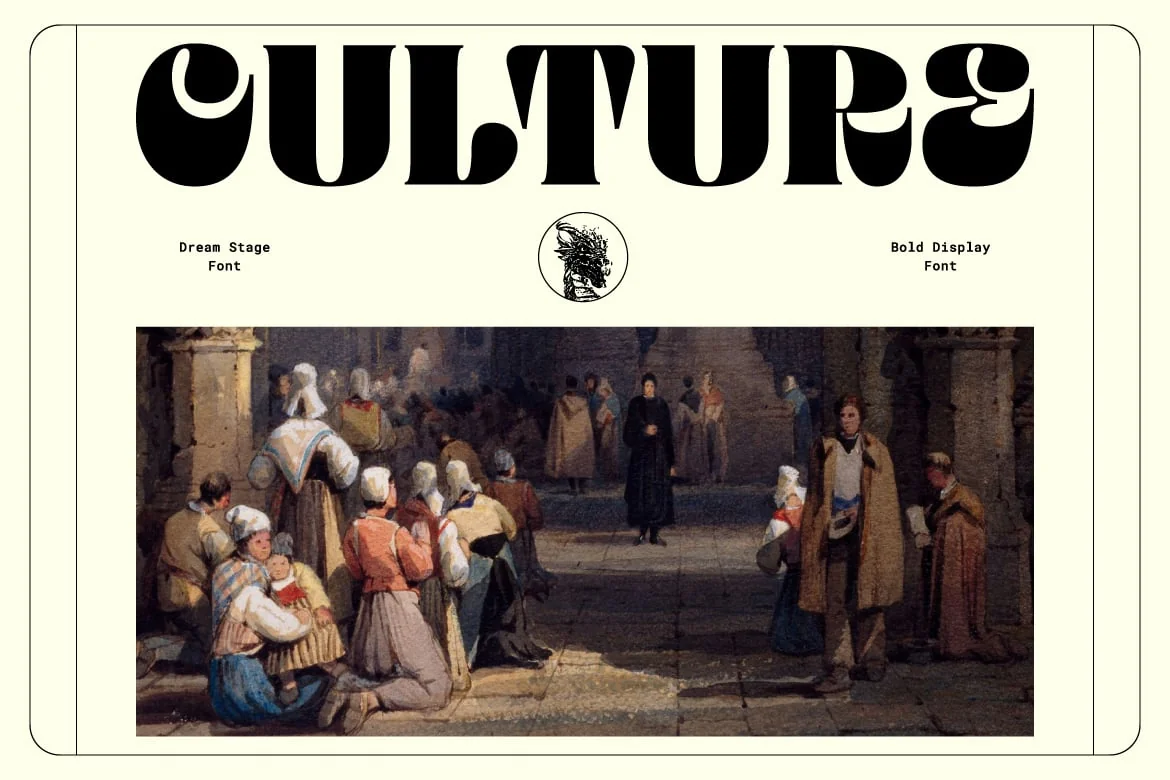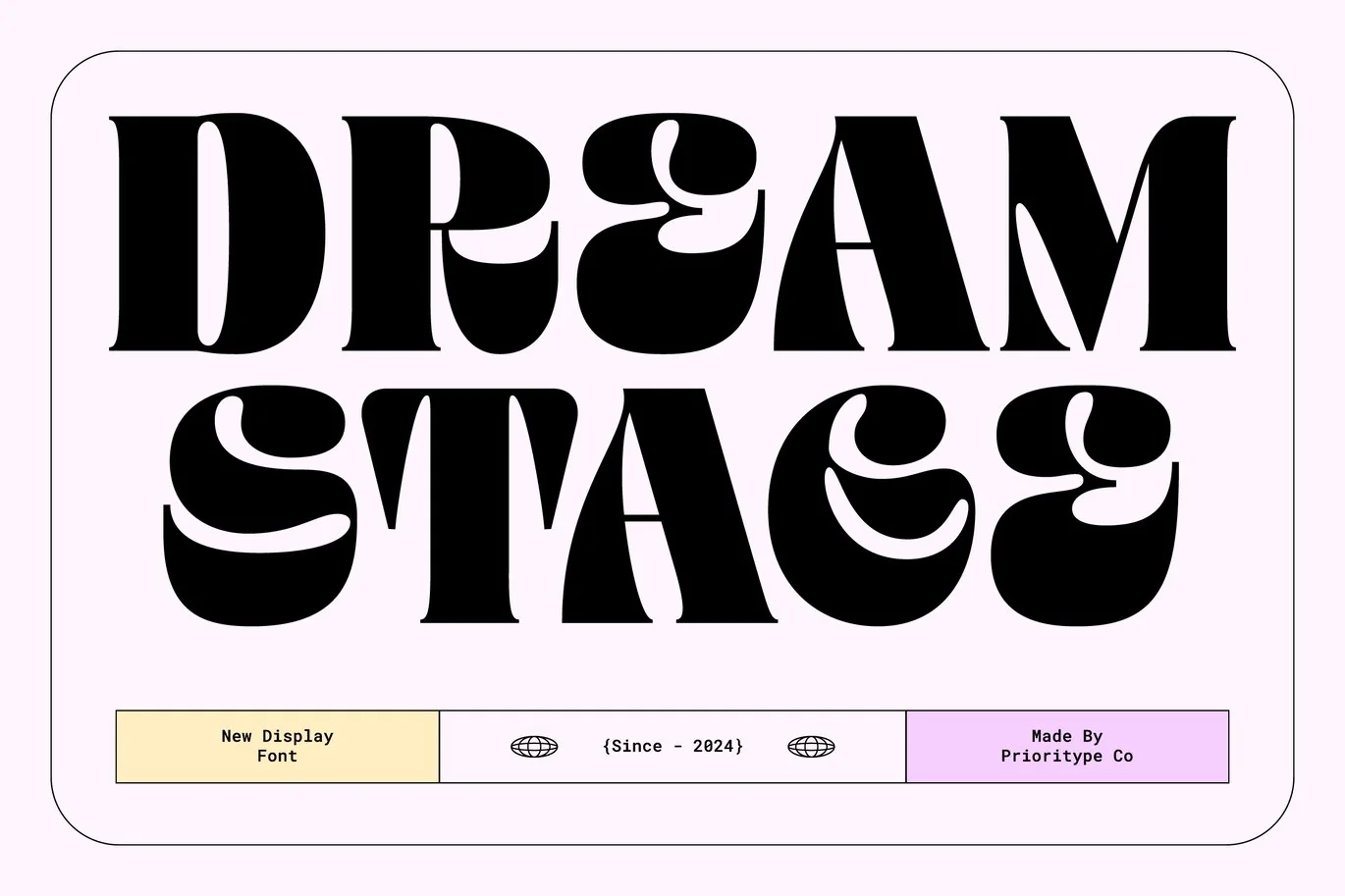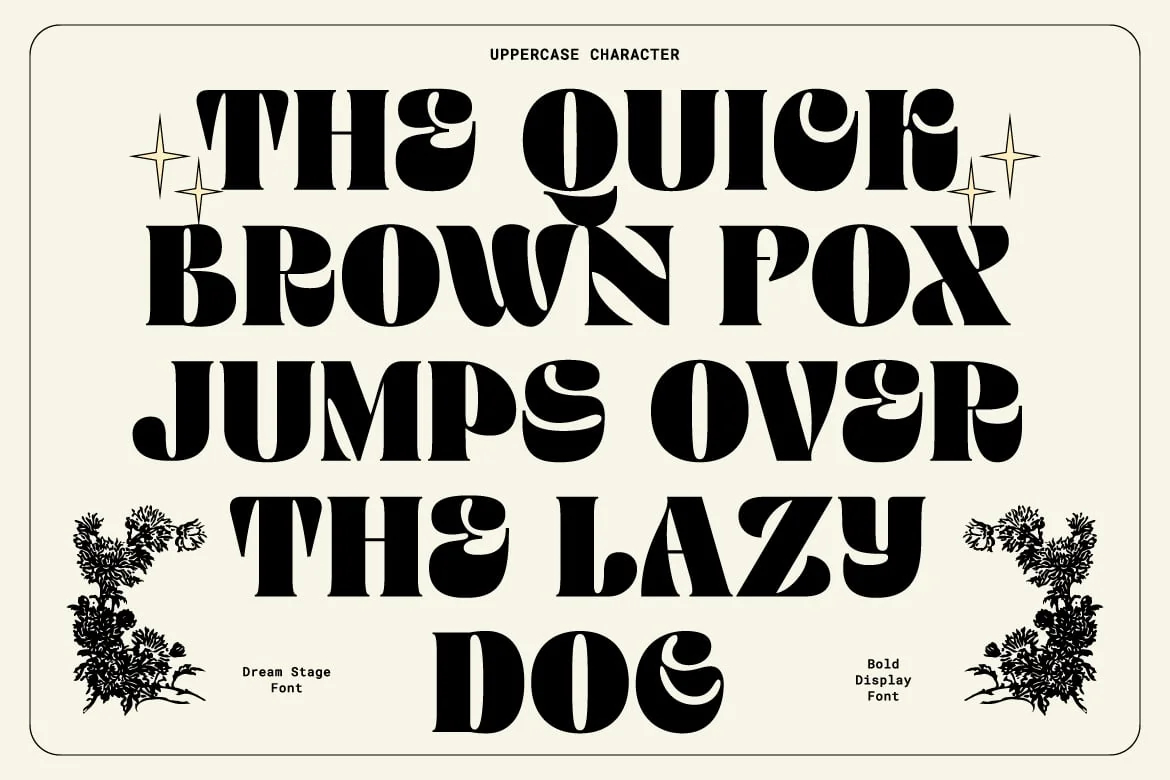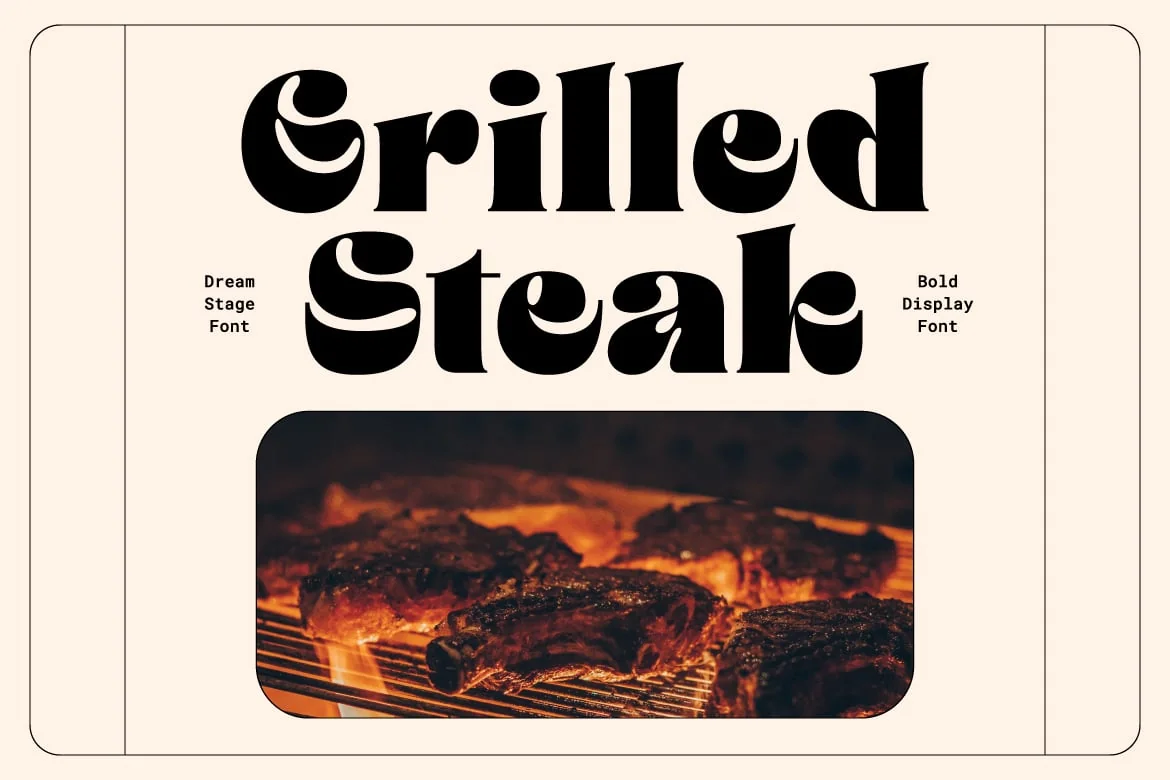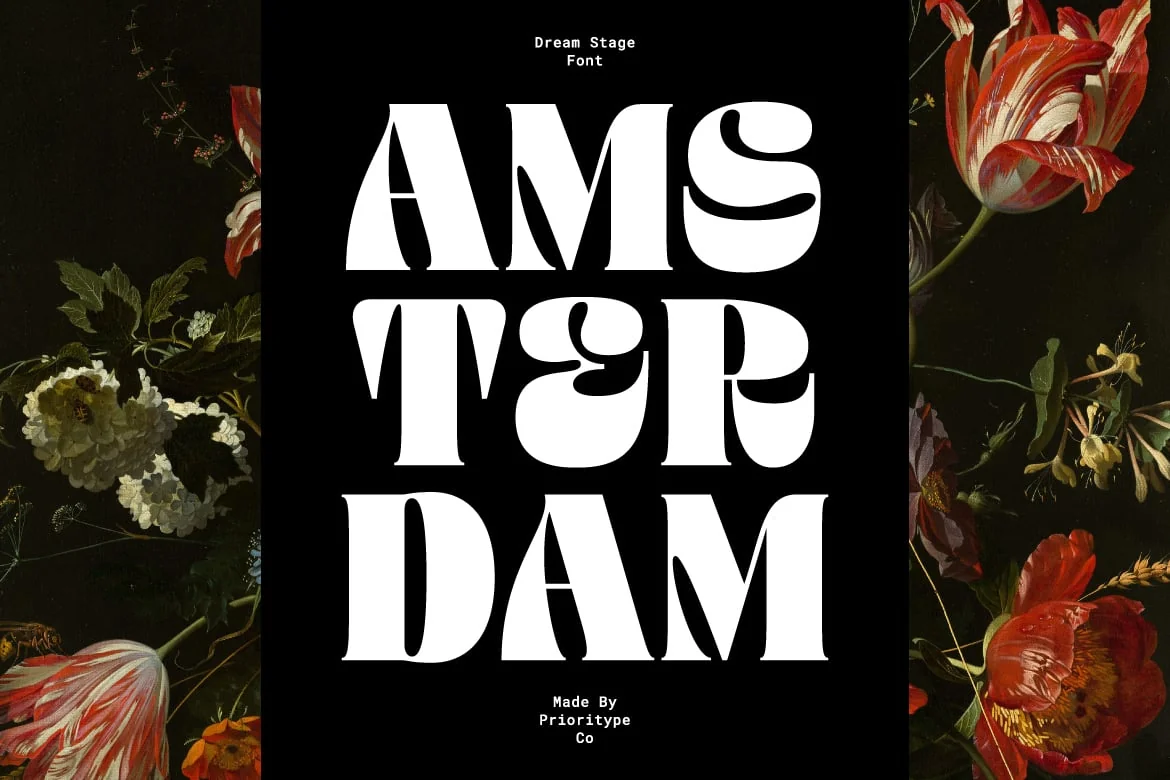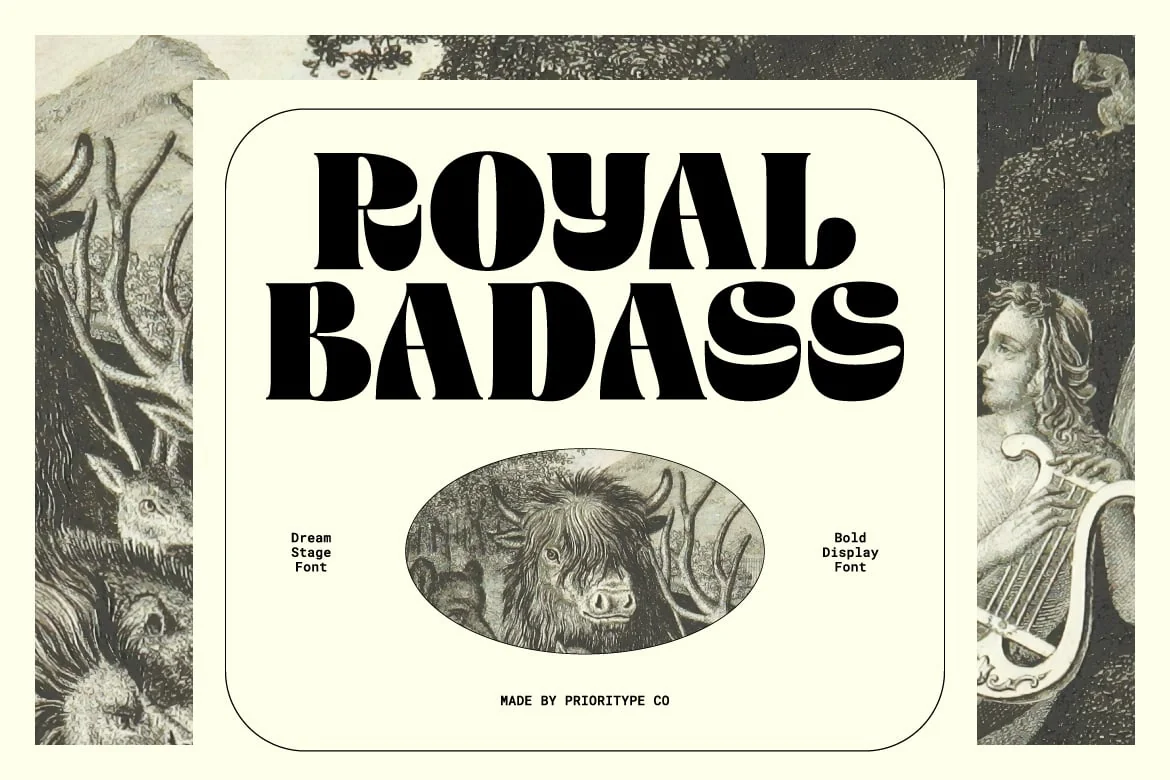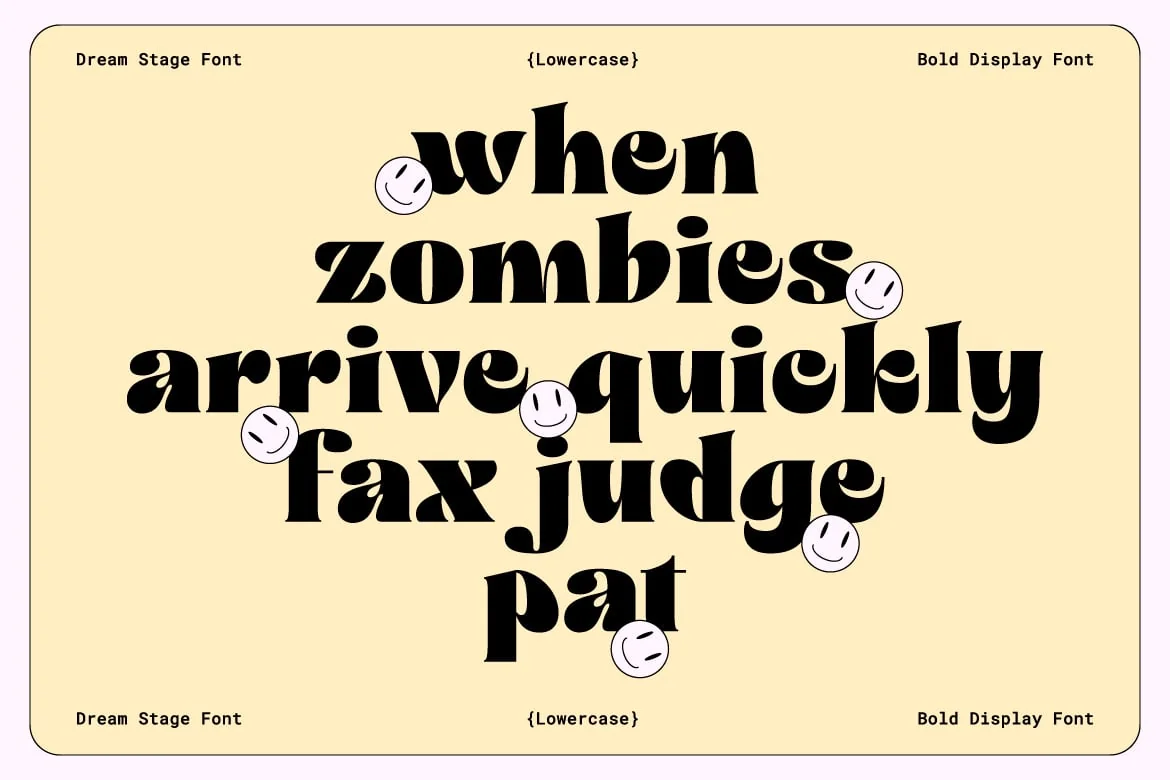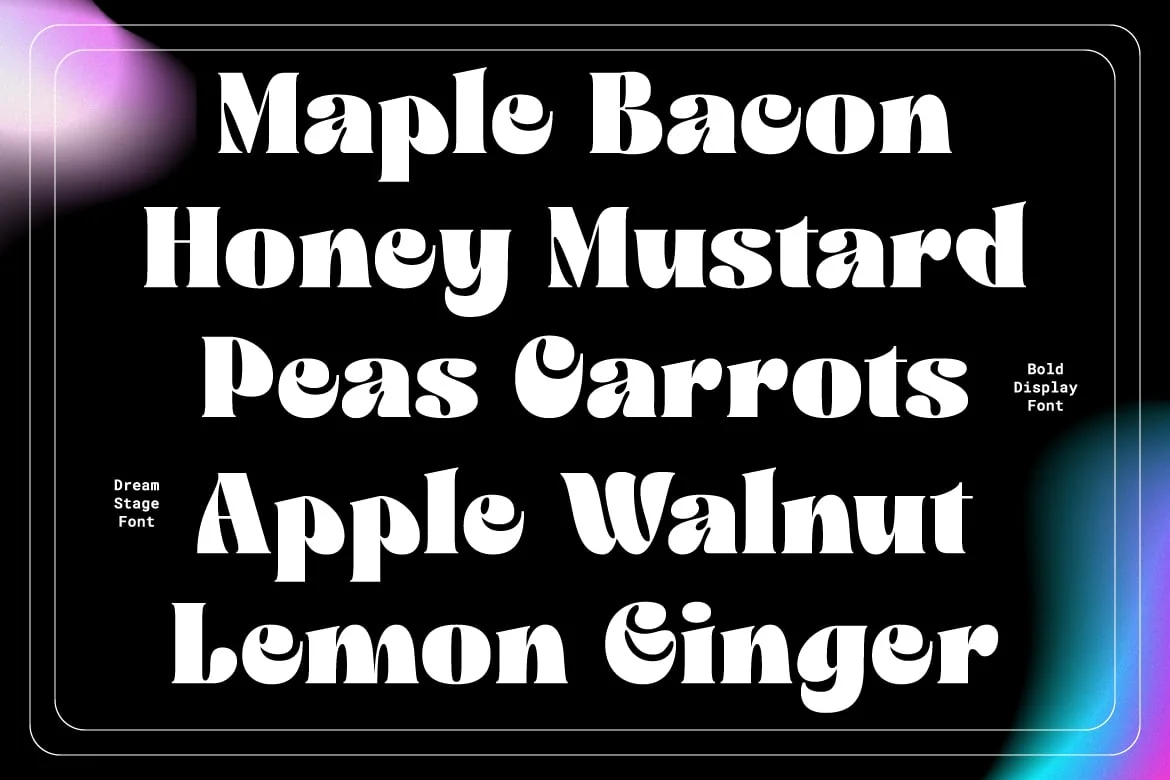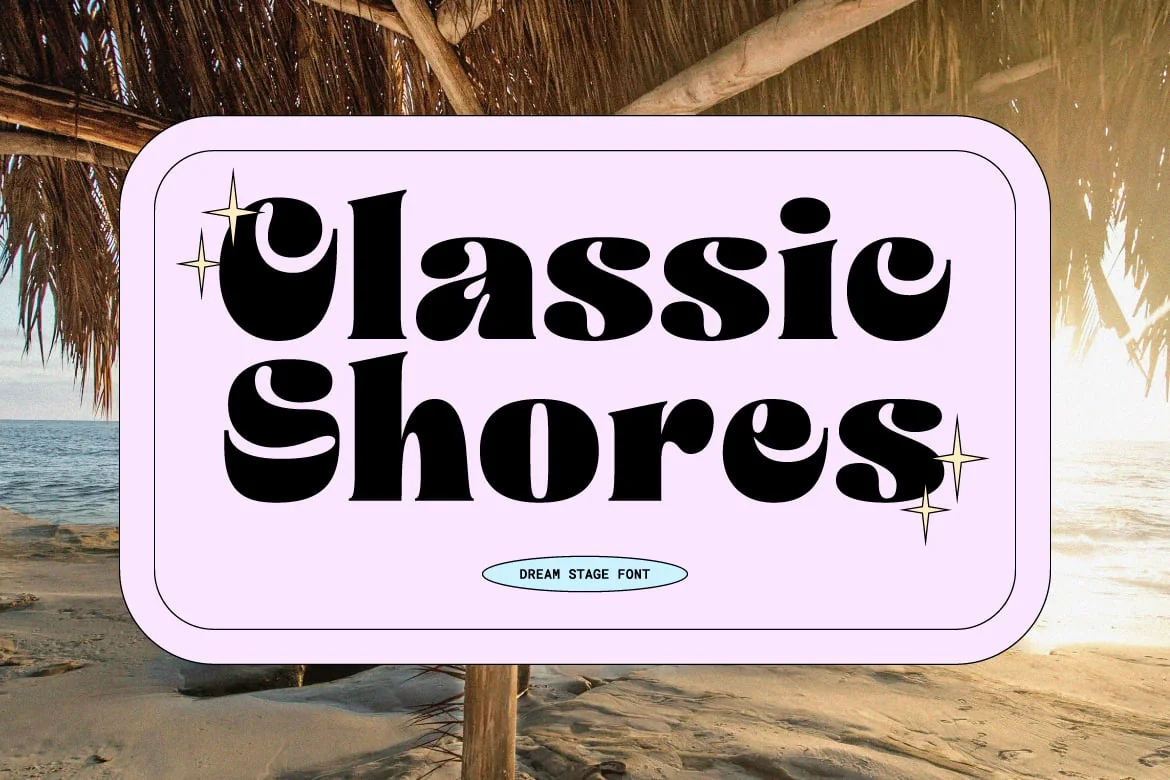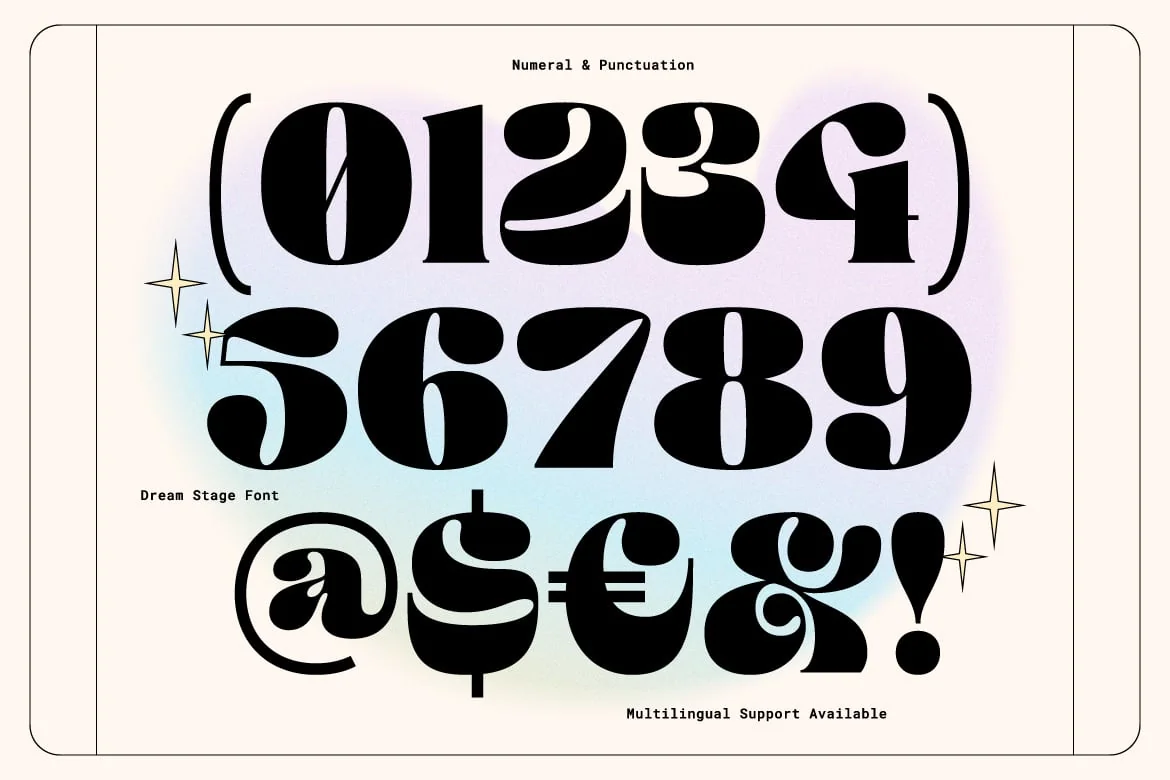
Dream Stage – Bold Display Font
A bold display font that captivates with its striking and authentic characters. Each letter exudes strength and authenticity, making it an impressive choice for posters, logos, and branding projects. Dream Stage stands out, commanding attention and leaving a lasting impression. Elevate your designs with this powerful and versatile font that embodies confidence and style.
- Features: Uppercase, Lowercase, Numeral, Punctuation & Multilingual.